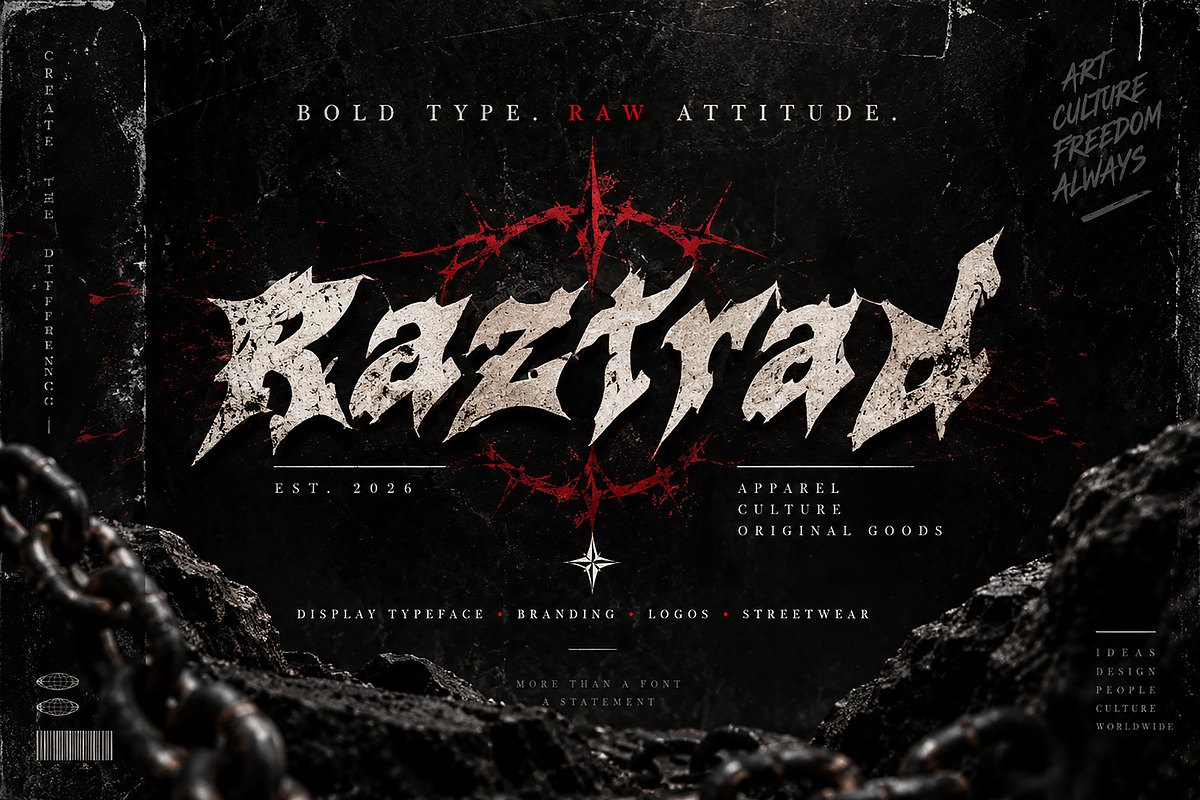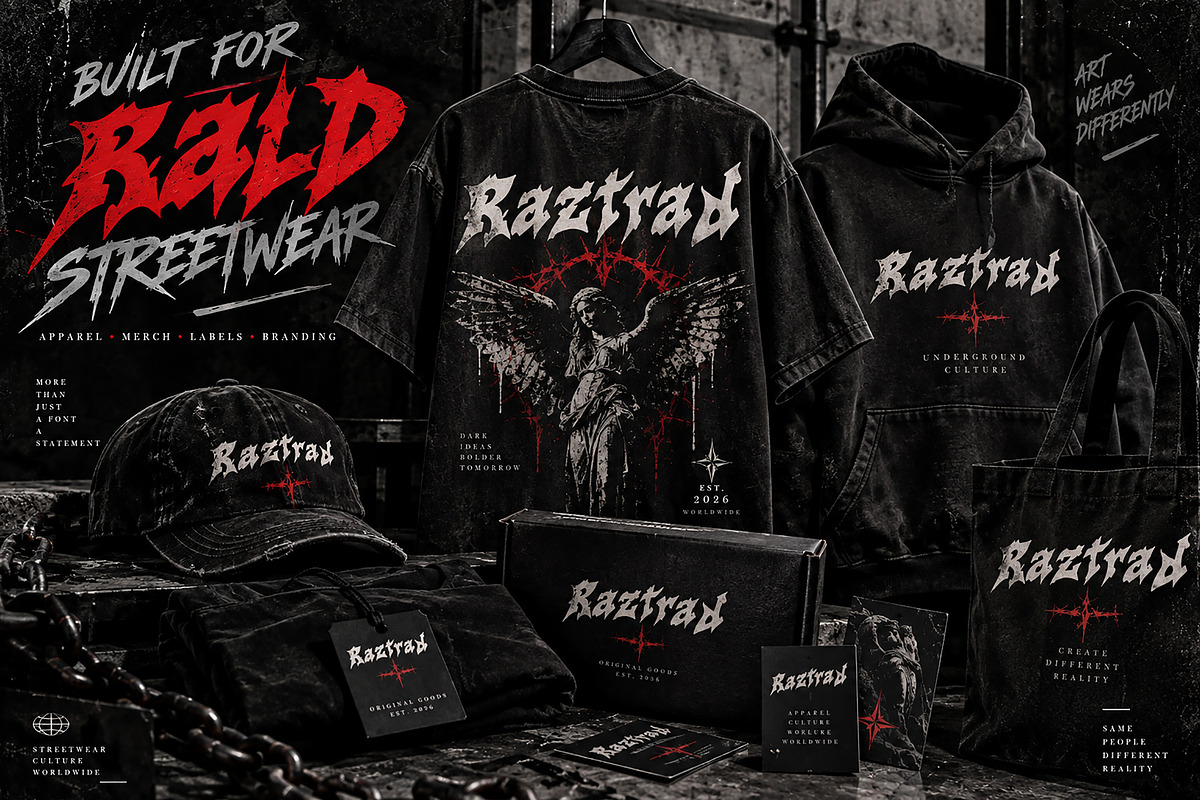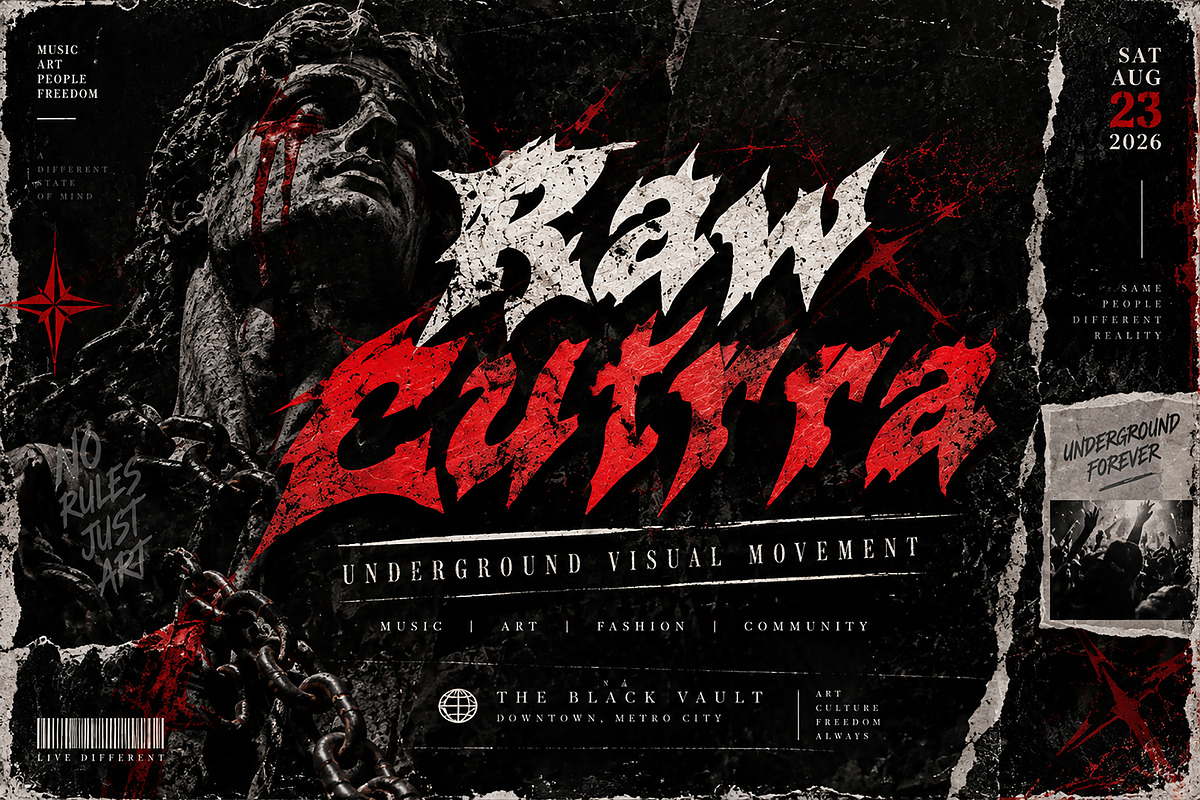
Raztrad
Raztrad is a bold and aggressive display typeface designed for projects that demand a strong, rebellious visual identity. With its sharp, jagged forms and raw underground character, Raztrad brings an intense, edgy presence to branding and experimental typography.
Perfect for streetwear brands, music artwork, album covers, concert posters, merchandise, logos, apparel graphics, event posters, labels, packaging, social media graphics, and alternative fashion projects.
Raztrad works especially well when you want your design to feel dark, powerful, unconventional, energetic, and rebellious. Its distinctive letterforms can instantly create a memorable visual statement and give creative projects a strong underground aesthetic.
Streetwear & Fashion Branding
Logo & Wordmark Design
Music & Album Artwork
Concert & Event Posters
T-Shirt & Apparel Graphics
Merchandise Design
Labels & Packaging
Gothic & Alternative Design
Punk & Underground Artwork
Editorial & Poster Design
Creative Typography Projects
Style: Aggressive Display / Gothic / Alternative
Raztrad — Bold Type. Raw Attitude.